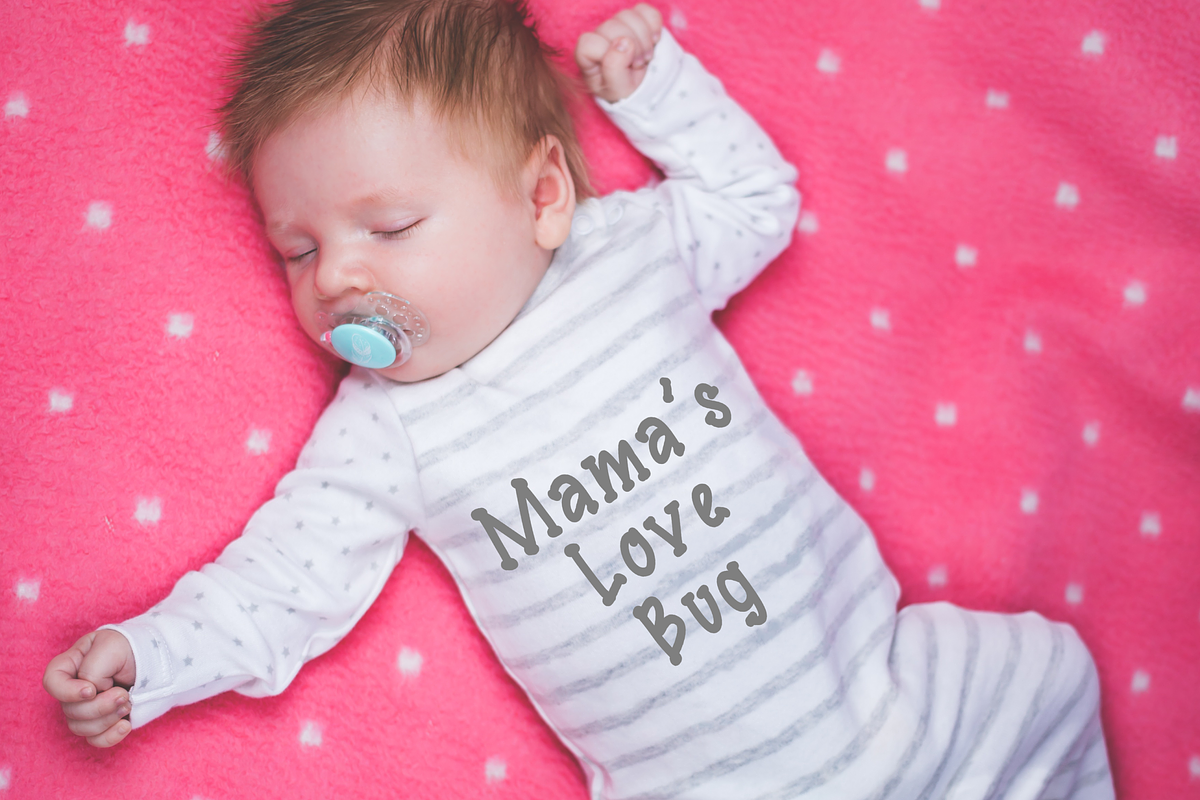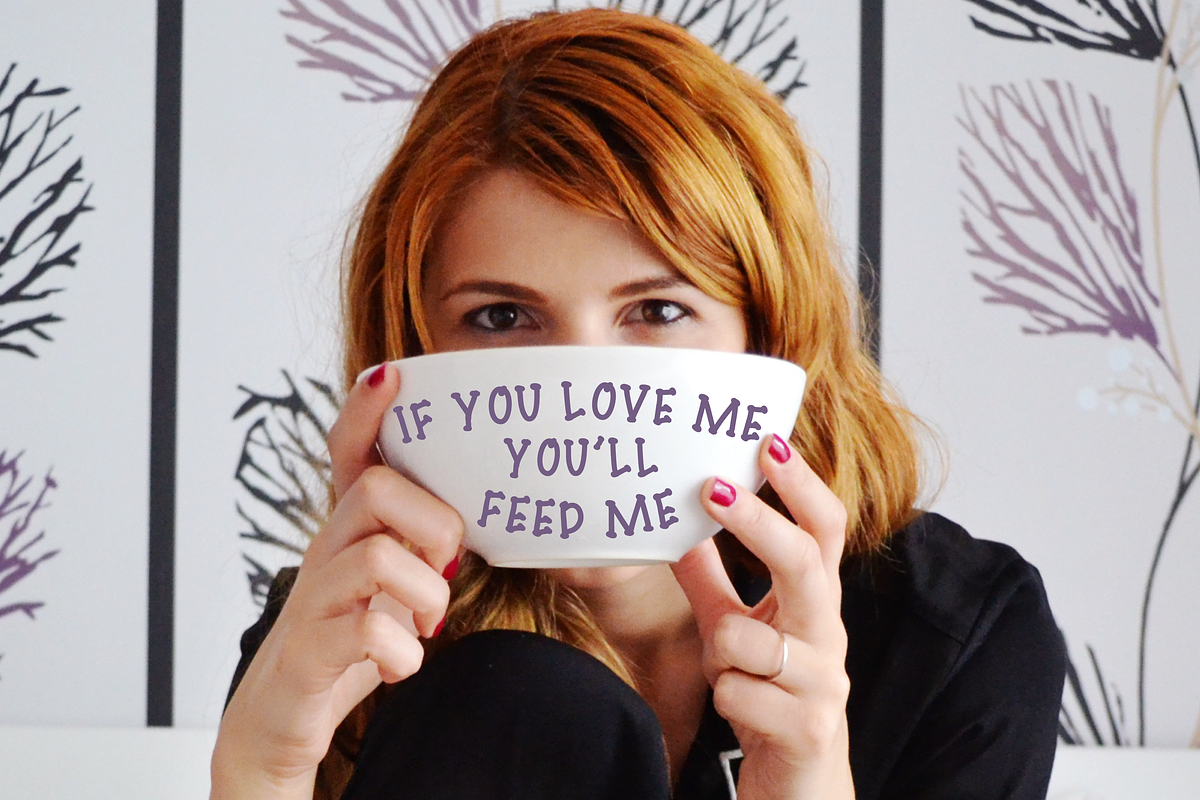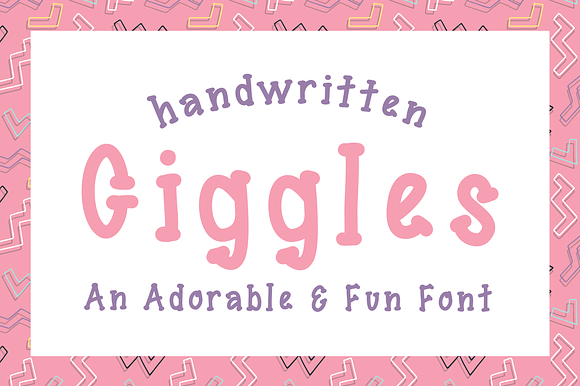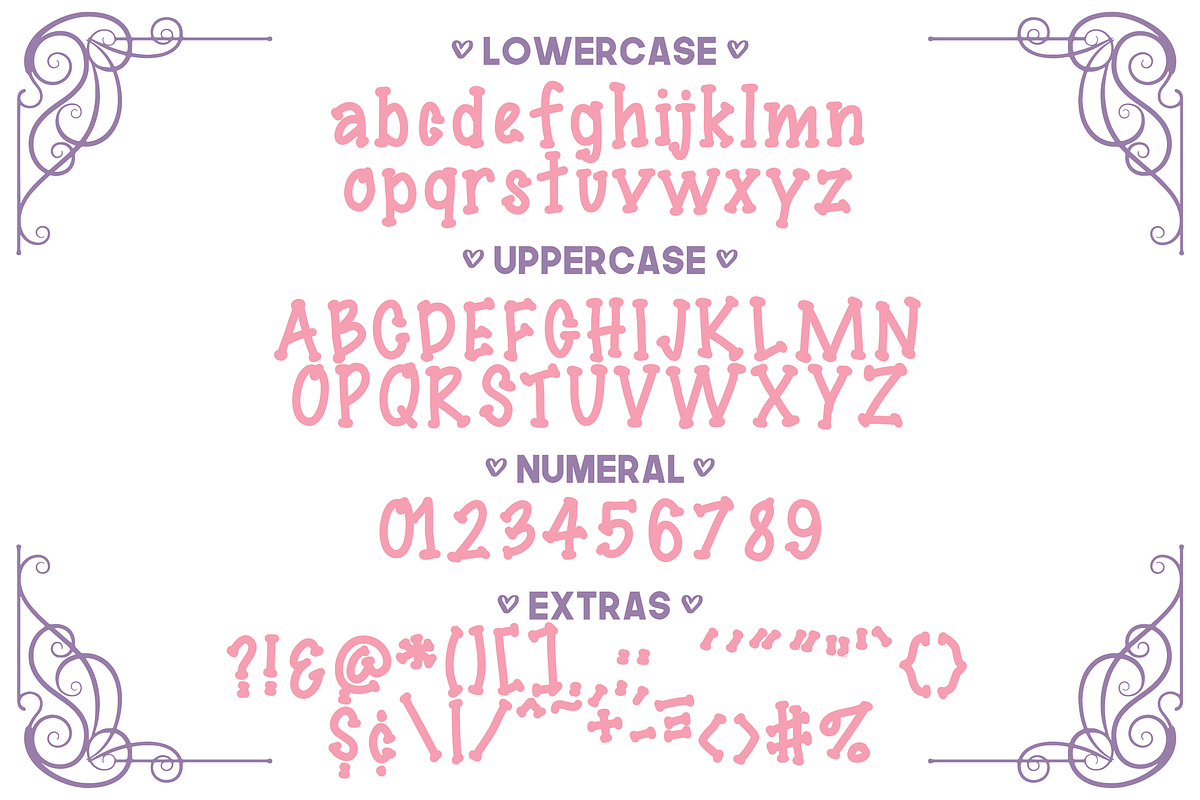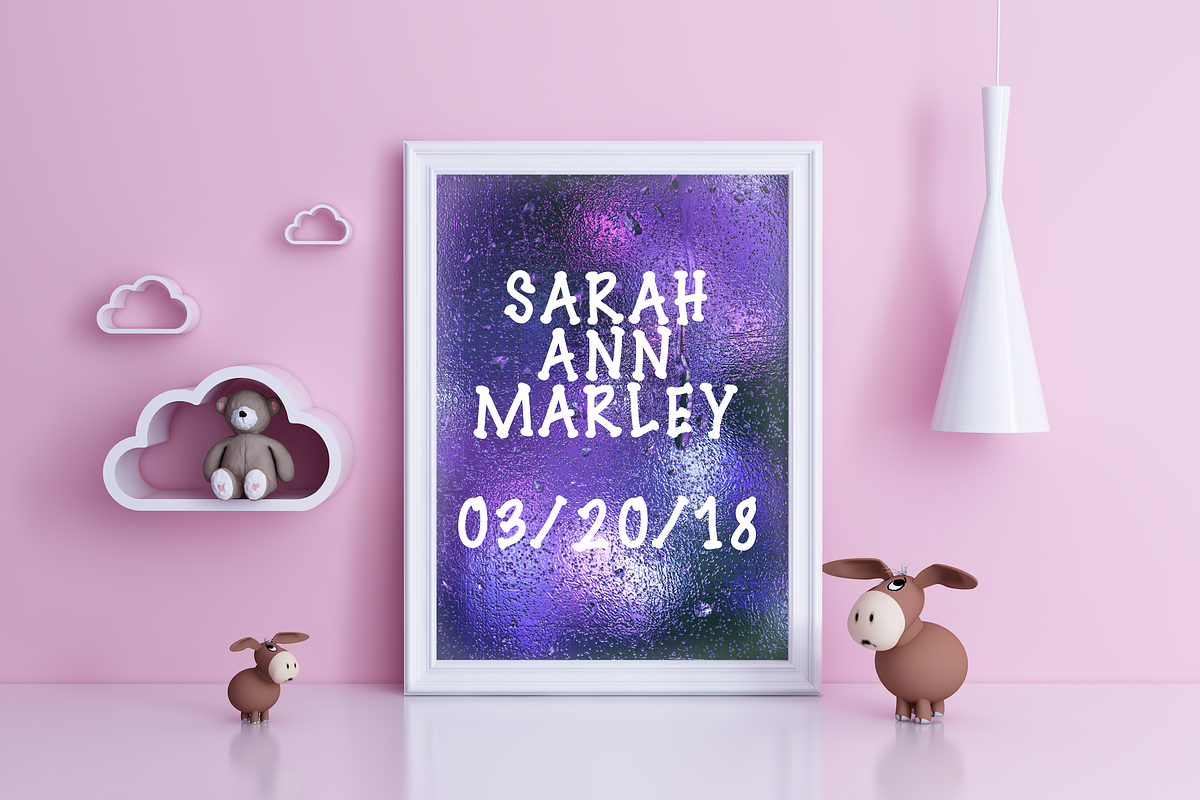
Giggles Font Fun Handwritten Serif
This adorable font Giggles is handwritten and very light hearted. Comes with A-Z, a-z, 0-9, and basic extra characters. Perfect for design!
Great for: wall decorations, nursery, graphic design, events, promotions, invitations, banners, stickers, cards, flyers, magnets, books, e-books, magazines, posters, package design, programs, business cards, postcards, brochures, logos, branding, advertising, media, social media, e-mail design, web design, ux design, accessories, home décor & much more!